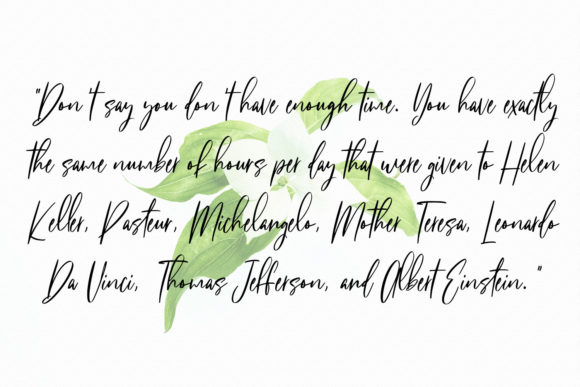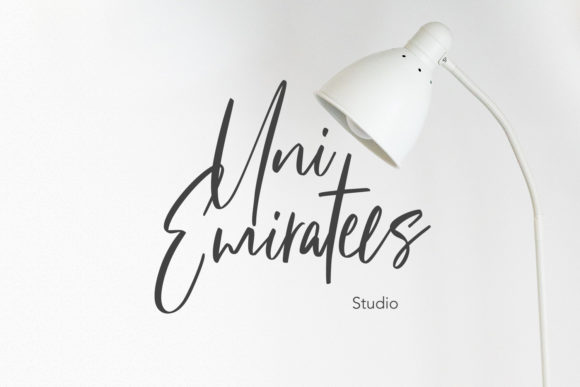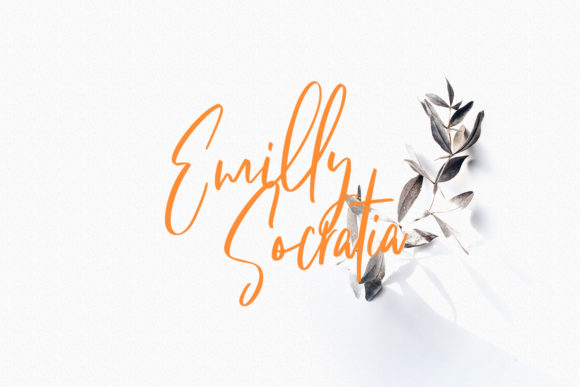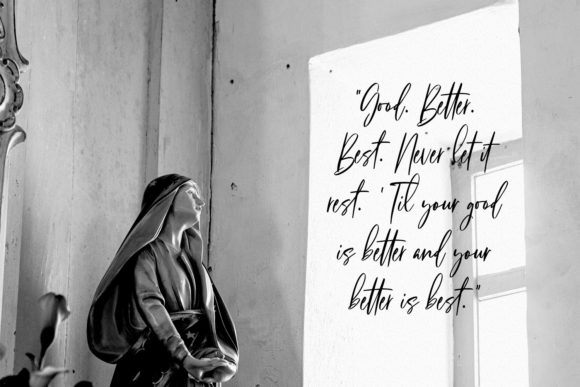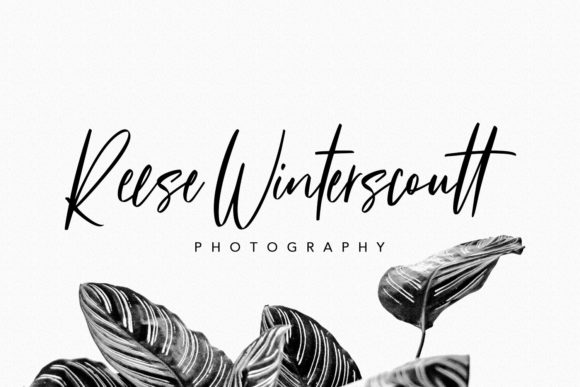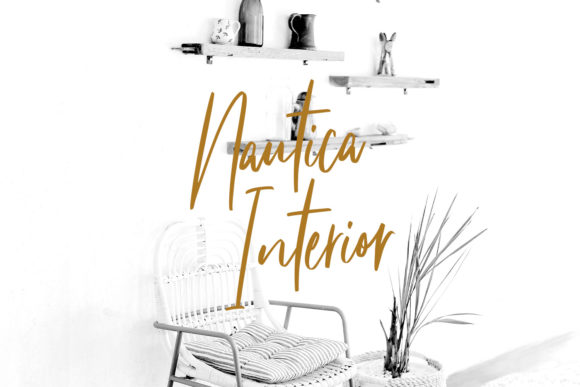
Introducing Fit Fleet Script Font: Elevate Your Designs with a Relaxed, Fashionable Touch
In the world of design, fonts play a pivotal role in conveying the message and aesthetic of a project. Whether you’re crafting a brand’s identity, creating engaging content, or designing decorative pieces, the right font can make all the difference. For those seeking a blend of relaxation, fashion, and fluidity in their typography, the Fit Fleet Script font is an excellent choice. This article explores the Fit Fleet Script font, a stylish and flowing script font designed to add a beautiful and refreshing look to your designs.
What is Fit Fleet Script Font?
Fit Fleet Script is a carefully crafted script font that embodies a relaxed, fashionable, and flowing aesthetic. Its design is particularly suited for projects that require a touch of elegance and a dash of modernity. The font’s unique characteristics make it versatile for various applications, from branding and advertising to packaging and digital content creation.
Key Features of Fit Fleet Script Font
- Relaxed and Fashionable: The font exudes a laid-back vibe while maintaining a high level of sophistication, making it perfect for designs that need to feel both approachable and stylish.
- Flowing Script: Its flowing nature allows for a dynamic and organic look, adding movement and grace to any design.
- Beautiful and Refreshing: With its unique letterforms and spacing, Fit Fleet Script brings a refreshing quality to designs, making them stand out in a crowded visual landscape.
- Versatility: This font can be used across various mediums, from digital platforms like websites and social media to print materials such as brochures and posters.
Who Can Benefit from Fit Fleet Script Font?
Fit Fleet Script is an excellent addition to the toolkit of various professionals and designers, including:
- Graphic Designers: Looking for a stylish and versatile font to elevate their projects.
- Branding Experts: Seeking to create a unique and memorable identity for their clients.
- Content Creators: Aiming to add a fashionable touch to their digital content.
- Crafters and Artists: Needing a font that complements their handmade or artistic projects.
Tips for Using Fit Fleet Script Font Effectively
To maximize the impact of Fit Fleet Script in your designs, consider the following tips:
- Pair with Complementary Fonts: Combine Fit Fleet Script with simpler fonts to create contrast and hierarchy in your design.
- Adjust Letter Spacing: Experiment with letter spacing to enhance readability and aesthetic appeal.
- Consider Size and Weight: Use varying sizes and weights of the font to add depth and emphasis to your text.
- Be Mindful of Legibility: Ensure that the font is legible in different contexts, especially when used in smaller sizes or on various backgrounds.
Fit Fleet Script font is a stylish and versatile addition to any designer’s arsenal. Its relaxed, fashionable, and flowing nature makes it perfect for a wide range of projects, from branding and advertising to art and crafting. By incorporating Fit Fleet Script into your designs, you can add a touch of elegance and modernity that sets your work apart. Whether you’re a seasoned professional or a hobbyist, this font is sure to inspire and enhance your creative endeavors.